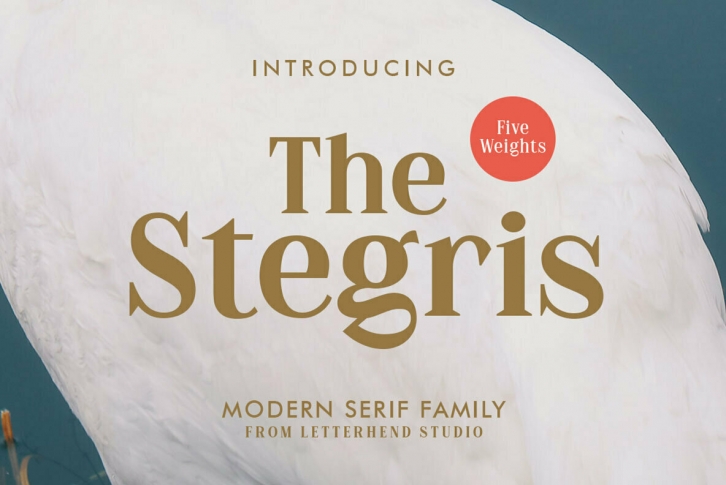
The Stegris - Modern Serif Family. A pack of serif typeface with 5 weights: Light, Regular, Semi bold, Bold and Black. This typeface also has special feature with its ligatures which make it unique even more.
This type of font perfectly made to be applied especially in logo, and the other various formal forms such as invitations, labels, logos, magazines, books, greeting / wedding cards, packaging, fashion, make up, stationery, novels, labels or any type of advertising purpose.
- Uppercase & lowercase
- Numbers and punctuation
- Alternates